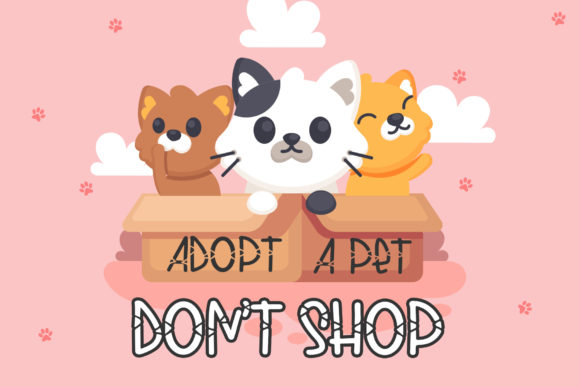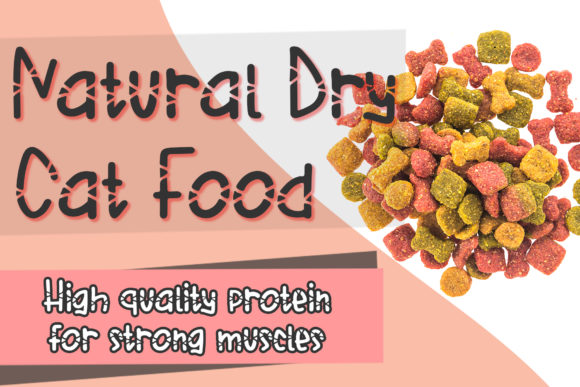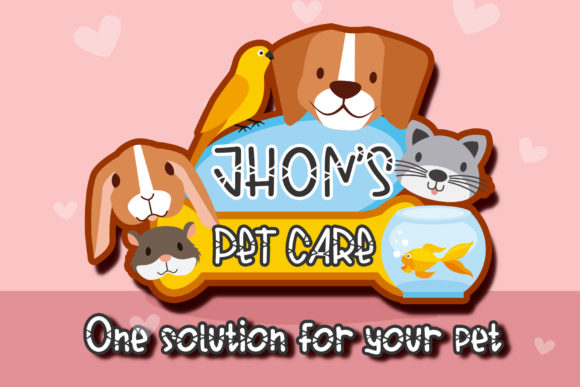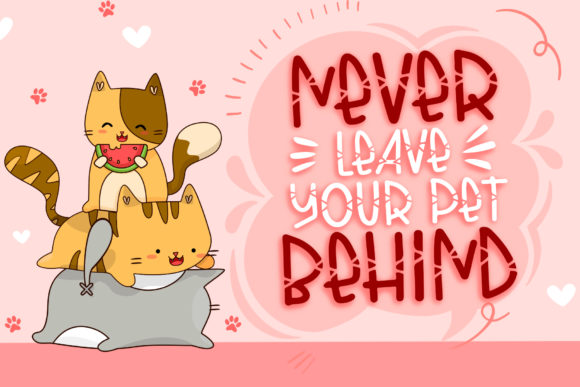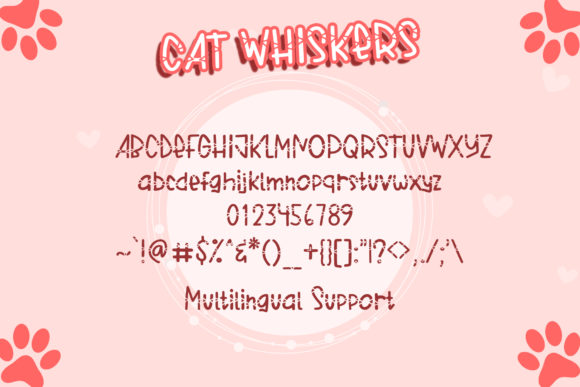
Introducing Cat Whiskers Font: The Purrfect Addition to Your Design Arsenal
Are you a designer or crafter looking for a font that adds a touch of playfulness and whimsy to your projects? Look no further than Cat Whiskers Font! This adorable handwritten font is sure to delight, especially when paired with bright colors and used in children-themed designs.
What is Cat Whiskers Font?
Cat Whiskers Font is a unique and charming handwritten font that is sure to capture the hearts of designers and crafters alike. Its quirky and endearing style makes it perfect for a wide range of design projects, from children’s party invitations and educational materials to craft patterns and DIY tutorials.
Key Features of Cat Whiskers Font
• Cute and Quirky: Cat Whiskers Font boasts a playful and whimsical style that is sure to add a touch of fun to any design project.
• Handwritten: This font features a genuine handwritten look, making it perfect for designs that require a personal touch.
• Children-Themed: The playful style of Cat Whiskers Font makes it ideal for use in children’s themed designs, such as party invitations, coloring books, and educational materials.
• Bright Color Combinations: When paired with bright and bold colors, Cat Whiskers Font really comes alive, adding an extra layer of visual appeal to your designs.
Using Cat Whiskers Font in Your Designs
Cat Whiskers Font is incredibly versatile and can be used in a wide range of design projects, including:
• Children’s Party Invitations: Create adorable and eye-catching party invitations that set the tone for a fun and festive celebration.
• Educational Materials: Use Cat Whiskers Font to create engaging and interactive educational materials, such as worksheets, activity sheets, and reading materials.
• Craft Patterns and Tutorials: Add a touch of personality to your craft patterns and tutorials with Cat Whiskers Font, making them more enjoyable and accessible to crafters of all skill levels.
• DIY Projects: Use Cat Whiskers Font to add a personal touch to your DIY projects, such as signs, labels, and other decorative items.
Tips for Getting the Most Out of Cat Whiskers Font
To get the most out of Cat Whiskers Font, here are a few tips to keep in mind:
• Experiment with Color: Don’t be afraid to get creative with color combinations! Cat Whiskers Font looks amazing when paired with bright and bold colors.
• Mix and Match: Combine Cat Whiskers Font with other fonts and design elements to create unique and visually appealing designs.
• Keep it Simple: Don’t overcomplicate your design. Cat Whiskers Font is perfect for simple, yet effective designs that get your message across.
Cat Whiskers Font is a delightful and versatile font that is sure to become a staple in your design arsenal. Its quirky and playful style makes it perfect for children-themed designs, and its handwritten look adds a personal touch to any project. With its wide range of uses and endless creative possibilities, Cat Whiskers Font is a must-have for designers and crafters looking to add a touch of whimsy and fun to their work.